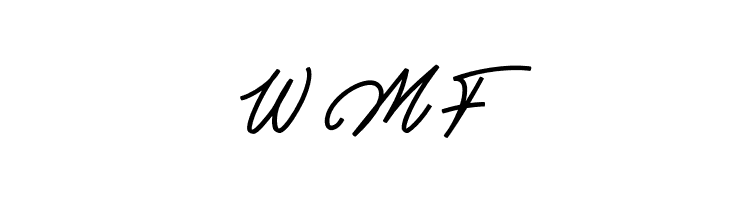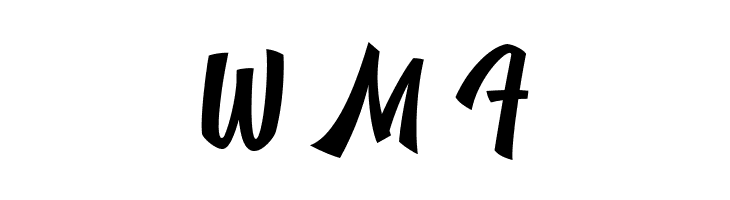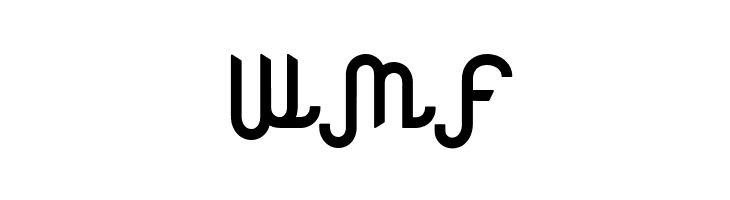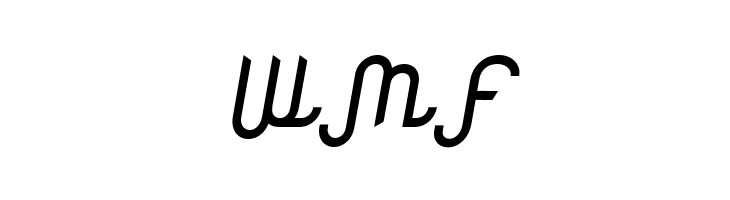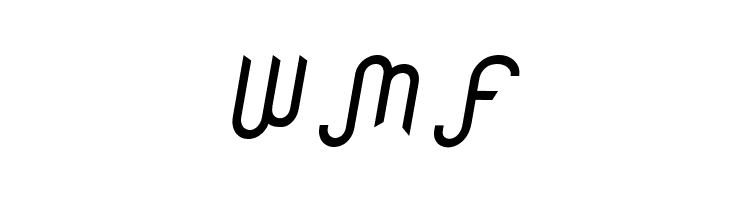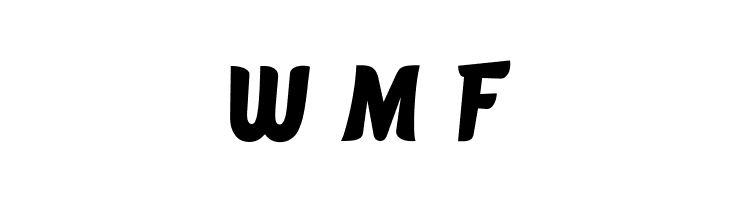
A bold, geometric font with modern and decorative elements, featuring high contrast and unique looped structures.
A bold, slanted font with geometric elements and a modern aesthetic.
A bold, modern font with a geometric and interconnected design.
A dynamic, slanted script font with flowing, interconnected characters.
A modern, decorative font with interconnected characters and a flowing design.
A modern, slanted font with angular, interconnected characters and high contrast.
A bold, slanted script font with interconnected characters and a modern flair.
A bold, dynamic script font with angular uppercase and fluid lowercase letters.
An elegant script font with flowing, cursive letterforms and sophisticated flourishes.
A bold, geometric inline font with a strong, commanding presence.
A bold, dynamic script font with high contrast and elegant cursive style.
An ornate and decorative script font with intricate swirls and flourishes.
A bold, playful script font with rounded, connected characters.
An elegant and flowing script font with ornate curves and flourishes.
A graceful script font with fluid, interconnected letters and elegant flourishes.
A modern, geometric font with clean lines and a minimalist aesthetic.
A bold, geometric font with circular cutouts and a modern, futuristic style.
A bold, Gothic-inspired font with intricate details and sharp edges.
A bold, angular font with high contrast and geometric style.
A bold, angular font with a geometric and modern design.
A bold, angular font with a geometric and modern style.
A bold, textured font with a rugged, vintage appearance.
A condensed, elegant script font with interconnected, flowing characters.
An elegant, flowing script font with intricate, condensed letterforms.
A bold, cursive script font with high contrast and elegant flow.
An elegant, bold script font with intricate, flowing characters.
A graceful, slanted script font with ornate uppercase and streamlined lowercase letters.
An elegant, bold italic script font with interconnected, flowing letters.
A flowing, cursive script font with elegant loops and swirls.
A bold, geometric font with a western-inspired, angular design.
A playful, hand-drawn font with bold, irregular strokes and a whimsical style.
A cursive, handwritten font with elegant loops and expressive flourishes.